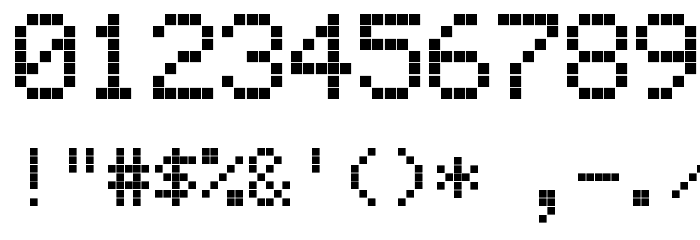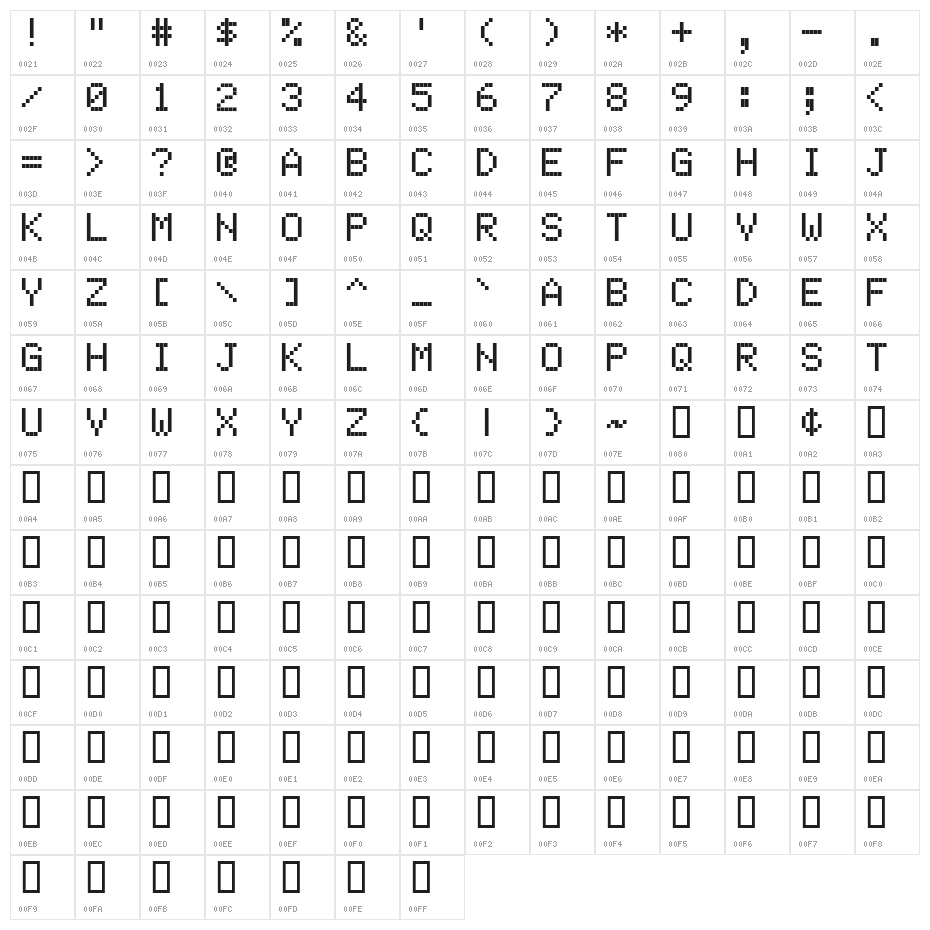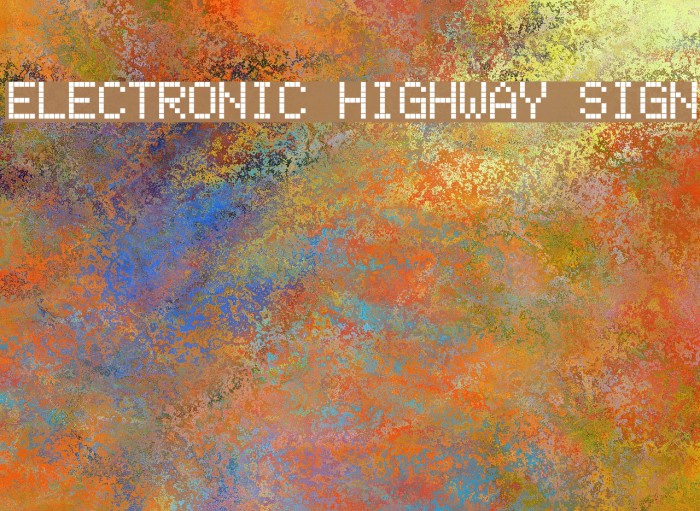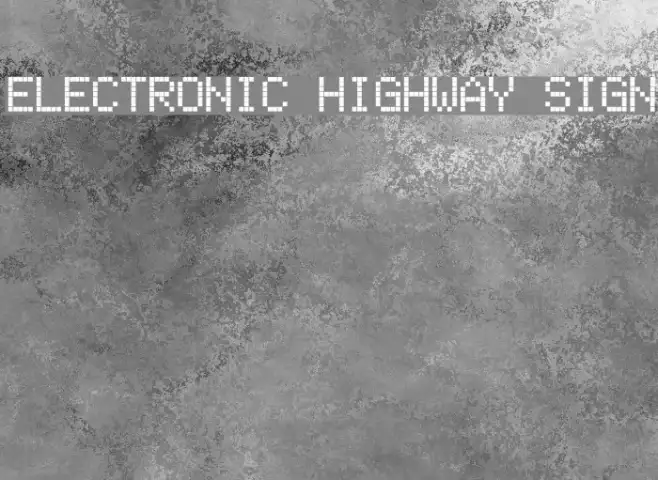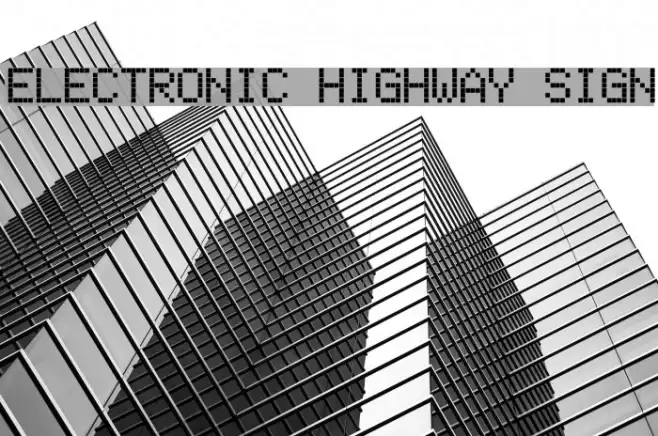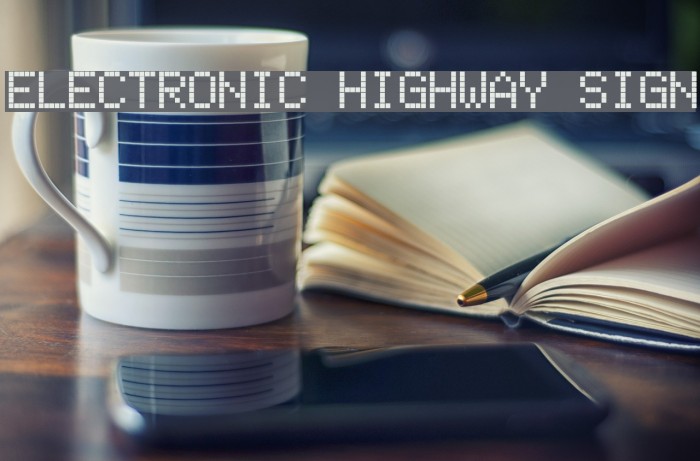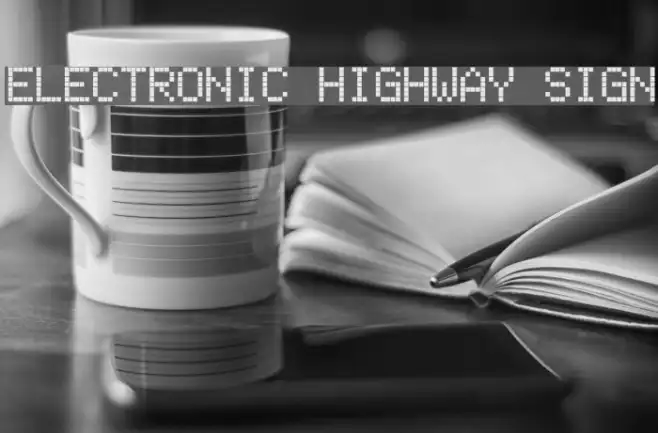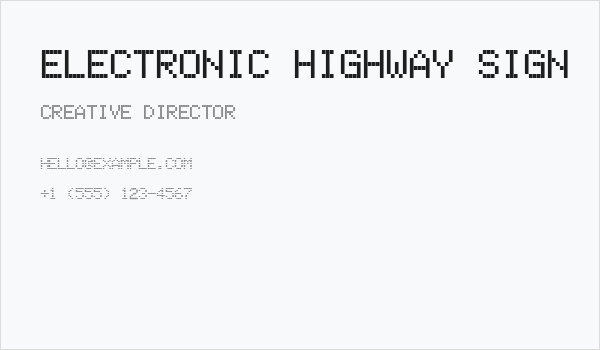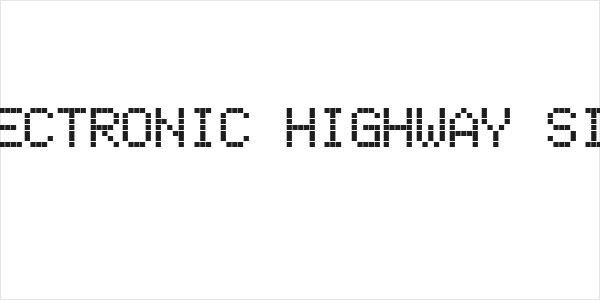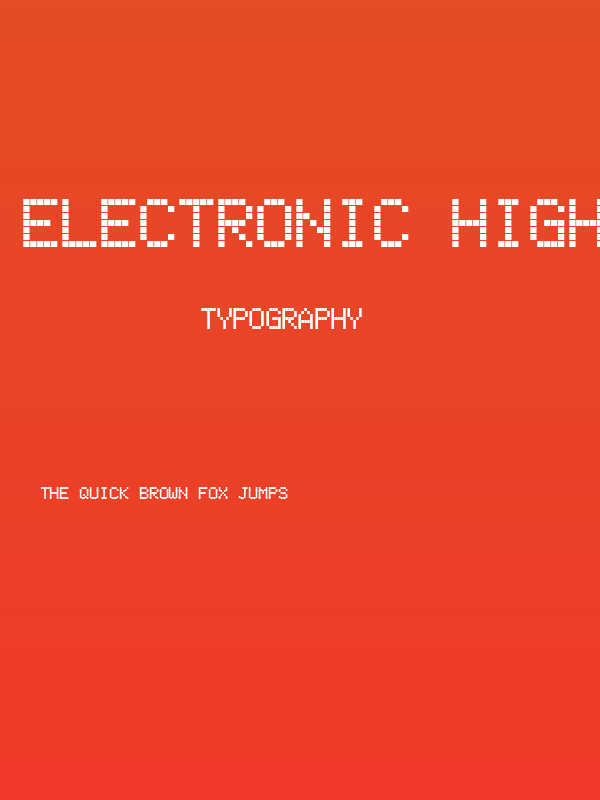
Electronic Highway Sign Font
Electronic Highway Sign Description
This font is a pixelated, grid-based typeface that mimics the appearance of characters on electronic highway signs. Each character is composed of a series of small, square dots arranged in a grid, giving it a distinctly digital and retro aesthetic. The uniformity of the grid structure ensures that each letter and number maintains a consistent height and width, contributing to a cohesive and orderly appearance. The font is highly legible from a distance, making it ideal for display purposes where clarity is paramount. The characters are evenly spaced, with a medium contrast between the filled and unfilled areas, enhancing readability. This design is reminiscent of early digital displays, evoking a sense of nostalgia while maintaining a modern edge.
| Use Case | Headlines, Digital displays, Signage |
| Proposed Projects | Ideal for digital displays, retro-themed designs, video game interfaces, and signage that requires high legibility. |